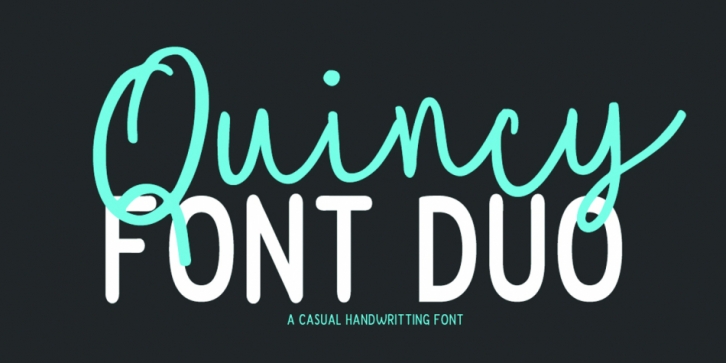
Quincy is a hand drawn font family. This typeface has four styles and was published by Nursery Art.
Quincy is handwritten script font duo family. This typeface has 3 styles.
This font a perfect for wedding invitation or your blog. Also with their help, you can create a logo or beautiful frame for your home. Or just use for your small business, book covers, stationery and more and was published by Nursery Art.